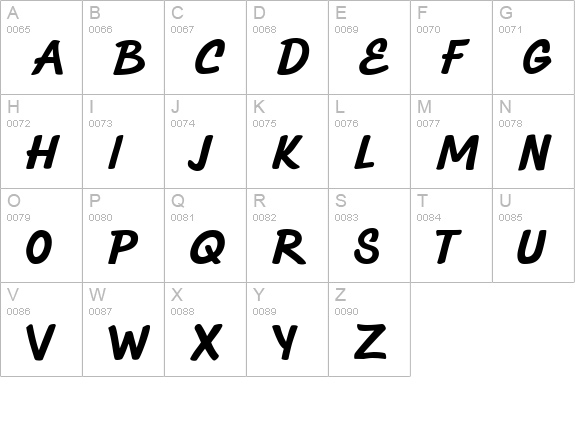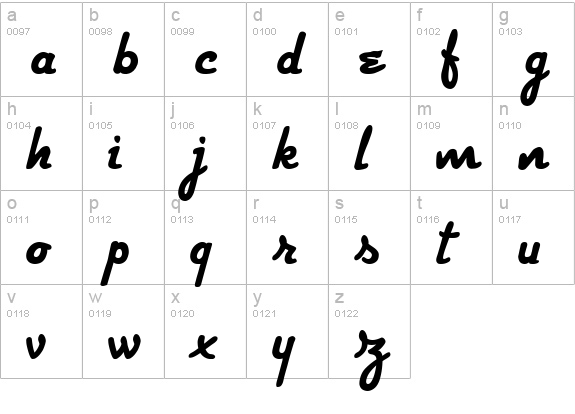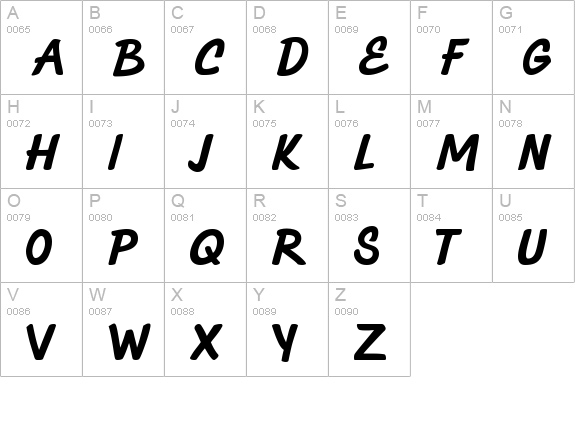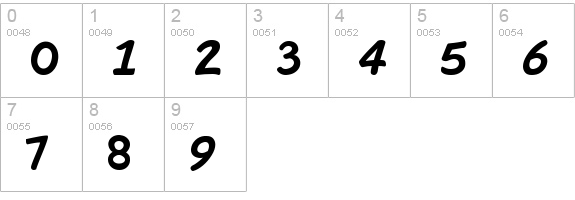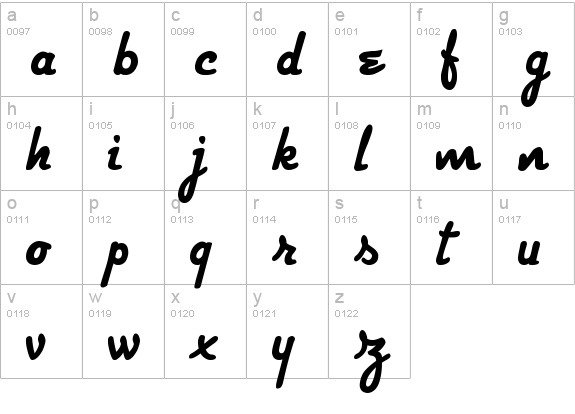
Strato Medium Regular is a balanced, medium-weight variant in the Strato typeface family \xE2\x80\x94 well suited to sub-headlines, navigation, and balanced editorial work.
Strato Medium Regular font is a versatile and elegant typeface that adds a touch of sophistication to any design project. With its clean lines and balanced letterforms, this font is perfect for both headlines and body text. The medium weight strikes the perfect balance between readability and impact, making it suitable for a wide range of applications. This font exudes a timeless appeal, making it suitable for various design styles, whether it be modern, classic, or minimalist. It is designed to be highly legible, ensuring that your message is conveyed effortlessly to your audience. The subtle details and refined curves of the letterforms give this font a sense of elegance and professionalism. What makes Strato Medium Regular font even more appealing is that it is free! That's right, you can freely download this font at FontsMarket.com. Whether you are a professional designer or an individual looking to add a touch of sophistication to your personal projects, this font is an excellent choice. The versatility of Strato Medium Regular font is further enhanced by its extensive character set, which includes both uppercase and lowercase letters, numerals, punctuation marks, and special characters. This ensures that you have all the tools you need to create stunning designs with ease. Whether you are designing a logo, a website, a brochure, or any other visual project, Strato Medium Regular font will elevate your design and make it stand out. Its timeless appeal, combined with its versatility and free availability, makes it a must-have font for any designer or enthusiast. So why wait? Go ahead and download Strato Medium Regular font from FontsMarket.com and unleash its full potential in your next design project.